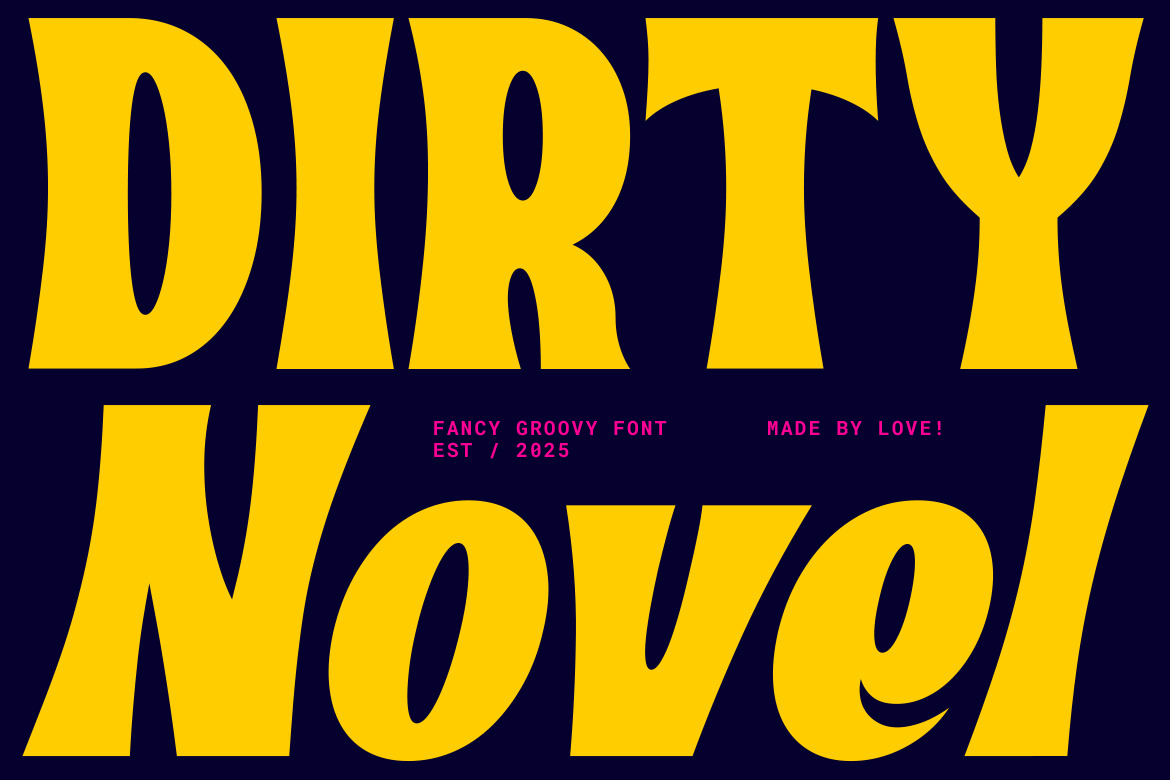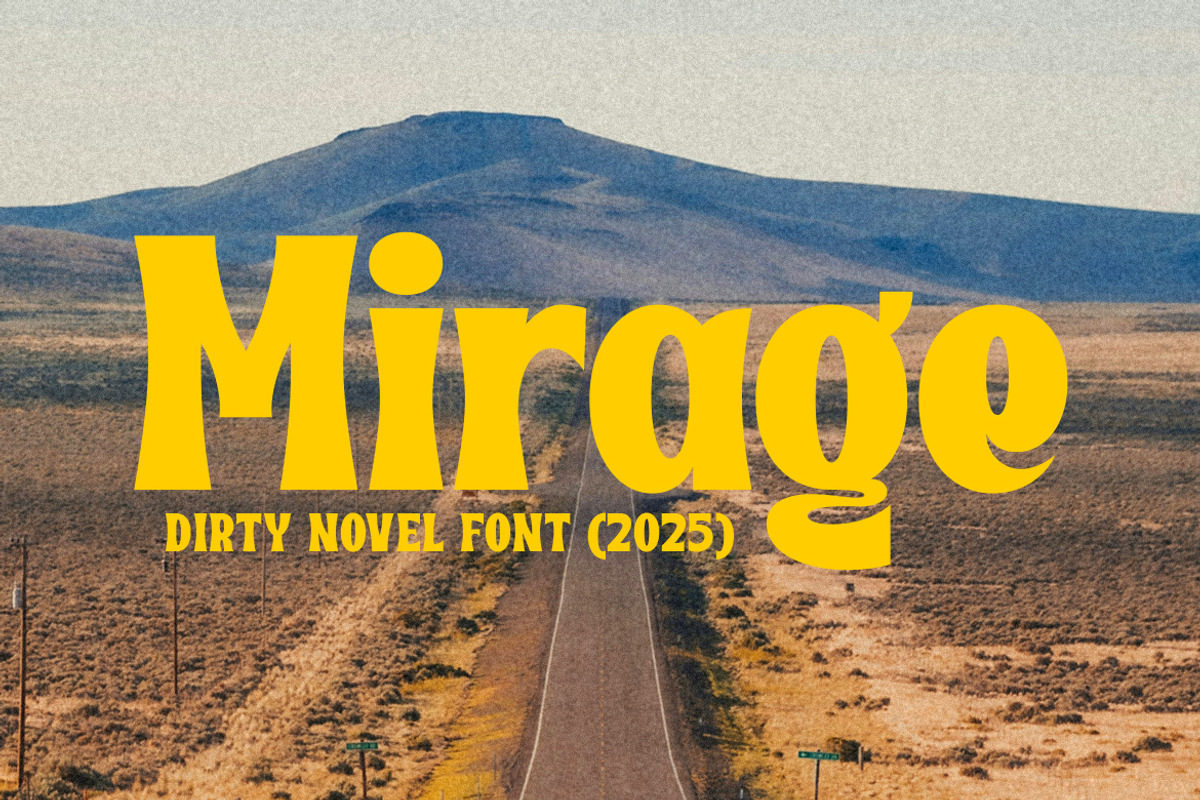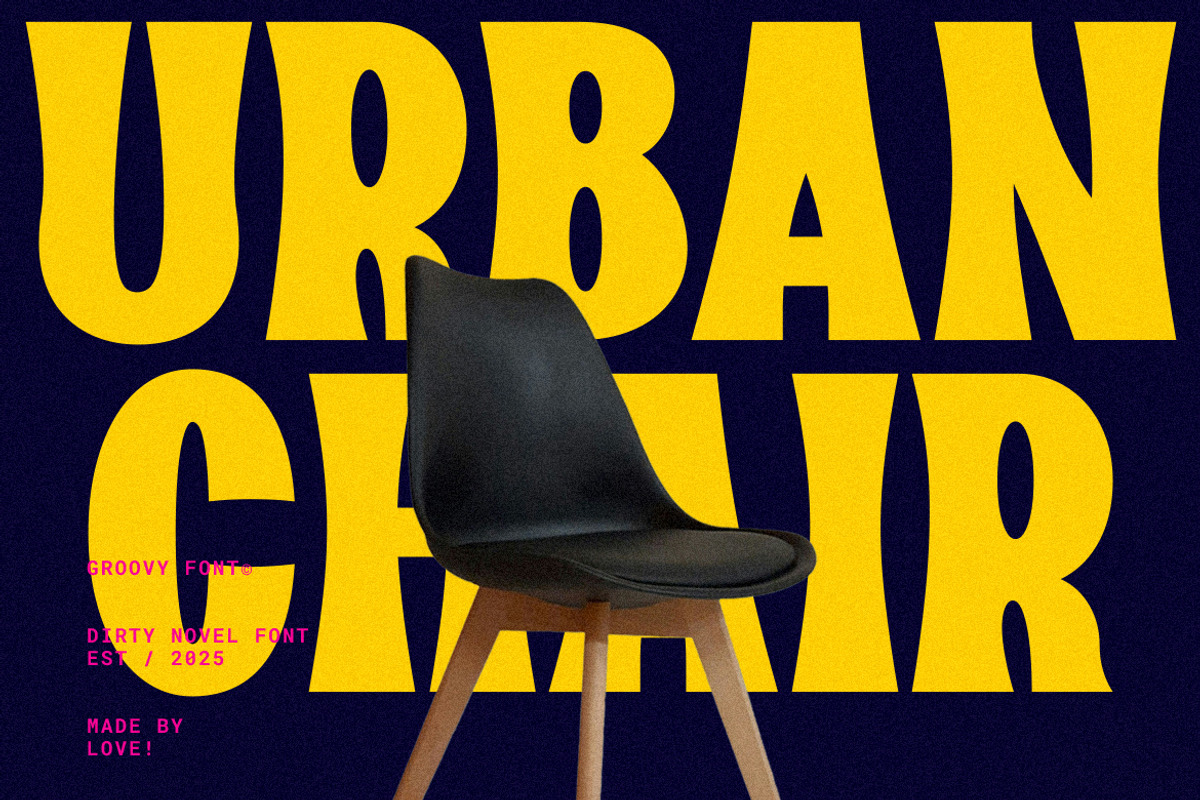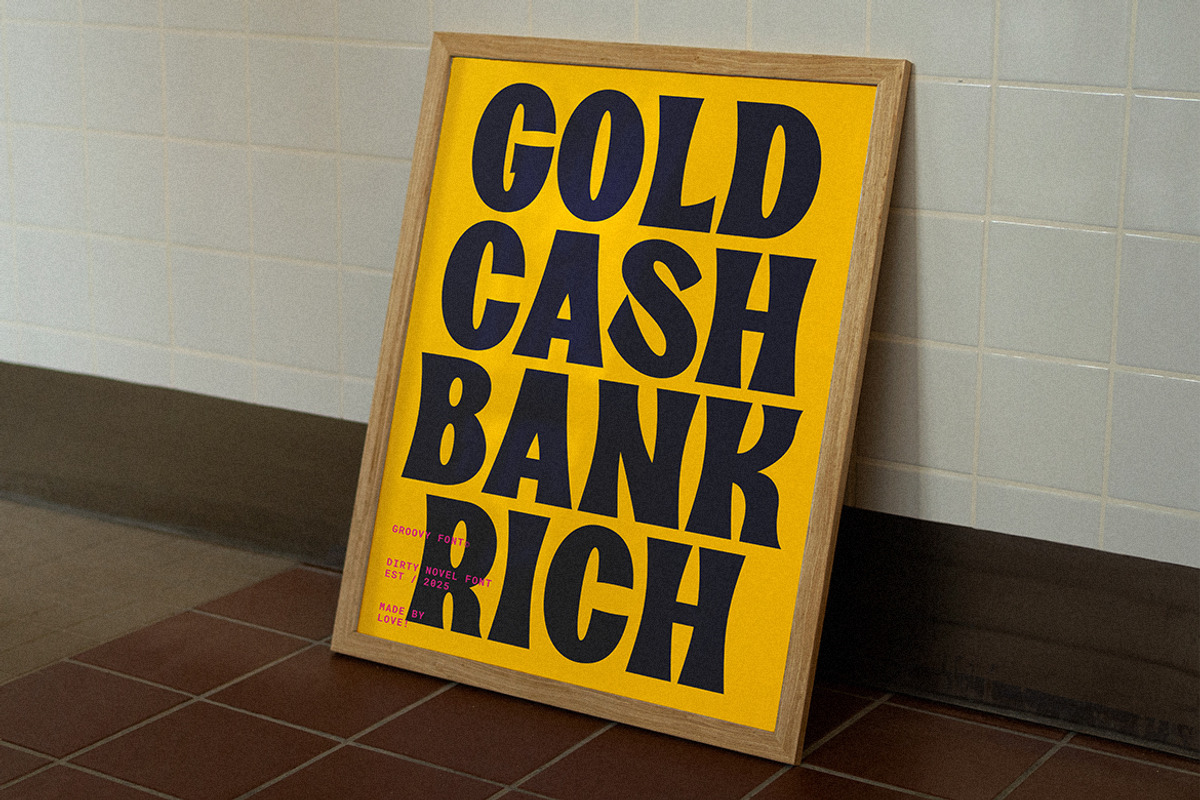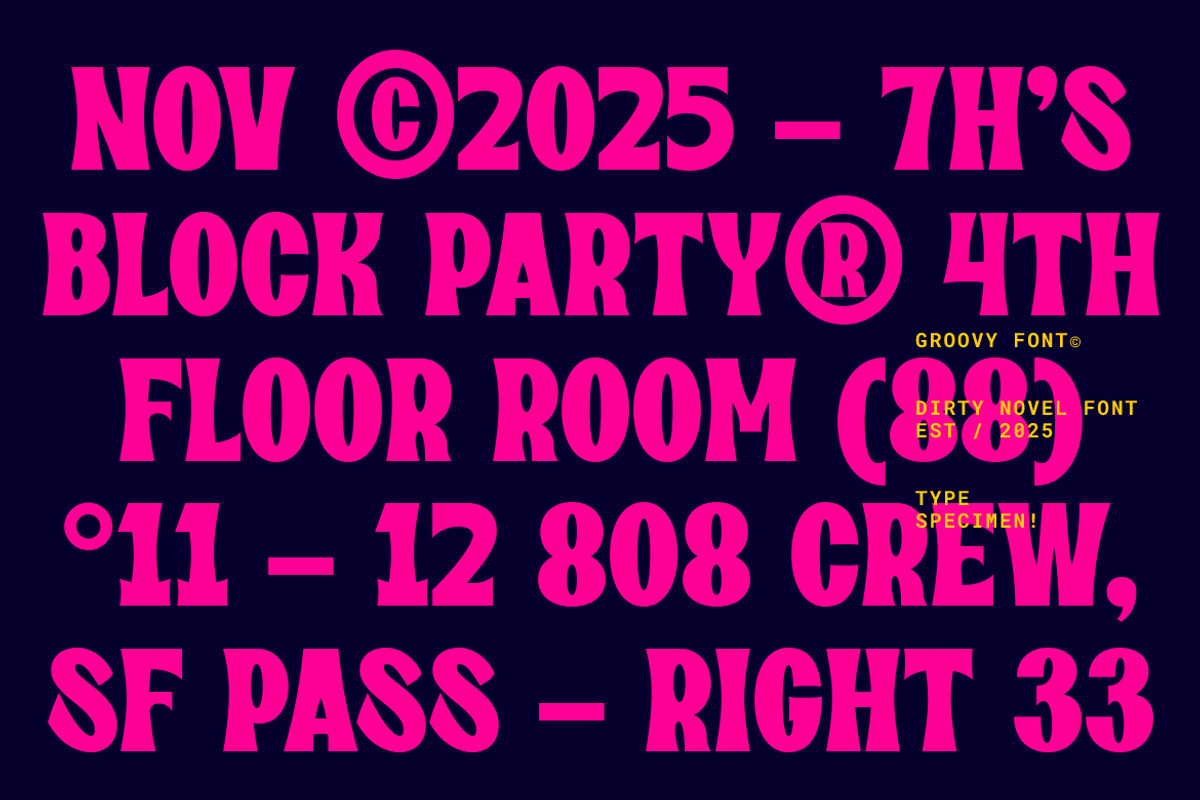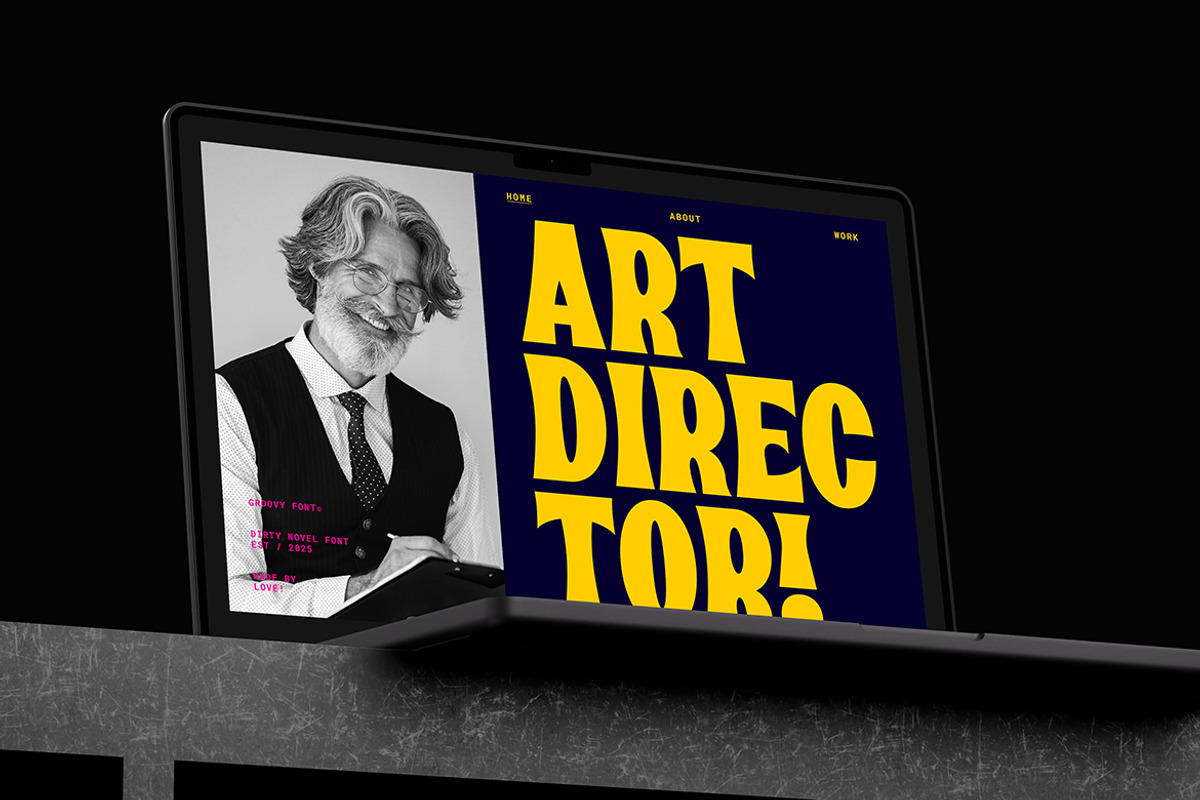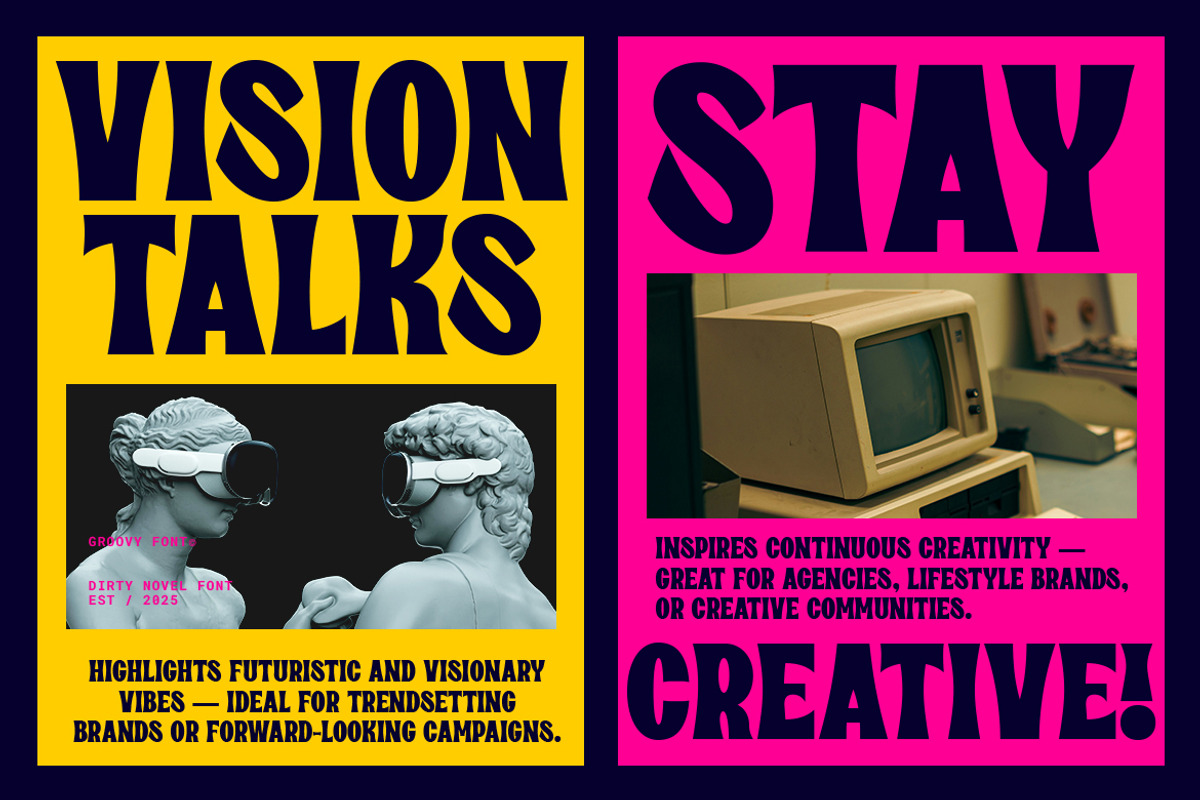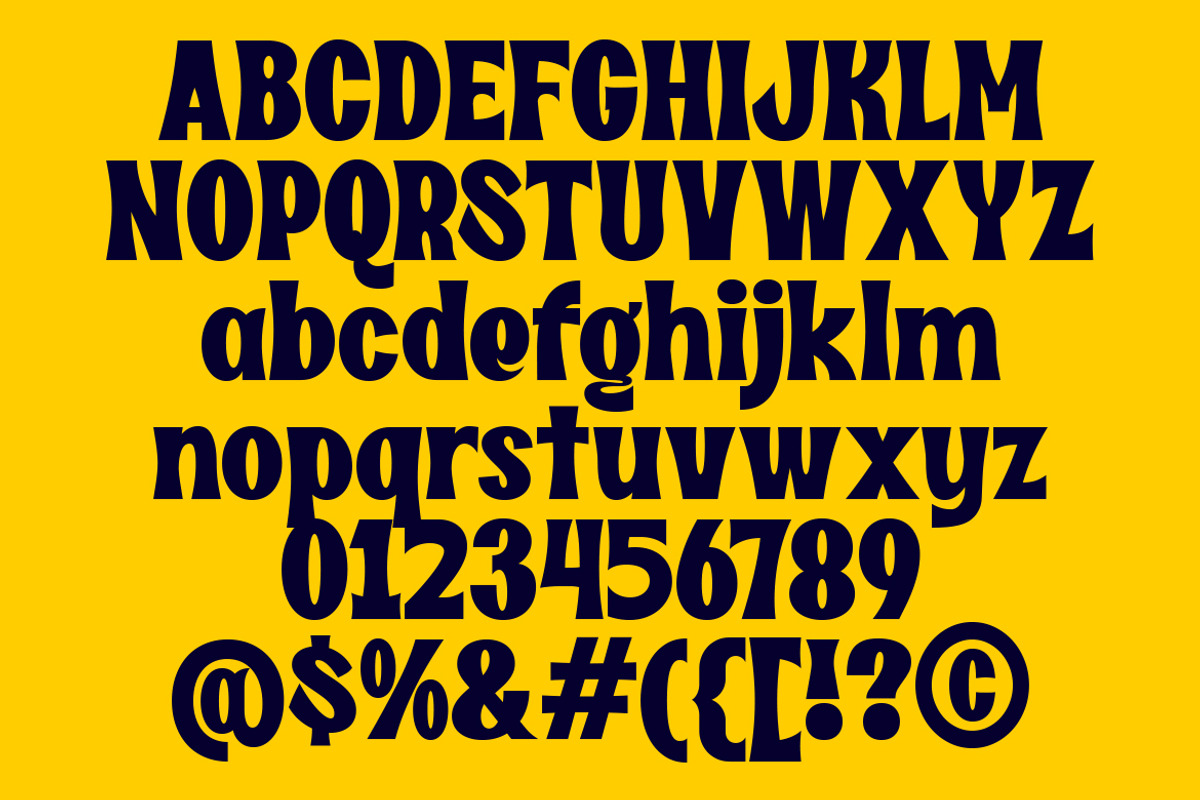
Dirty Novel Fancy Font
Dirty Novel is a bold and fancy typeface that carries the timeless spirit of the ’80s and ’90s. With its strong presence and retro-modern elegance, this font brings both glamour and attitude to your designs.
Available in Regular and Slant styles, Dirty Novel is perfect for branding, posters, magazine titles, music artwork, and any creative project that needs a striking, nostalgic touch with a modern edge.